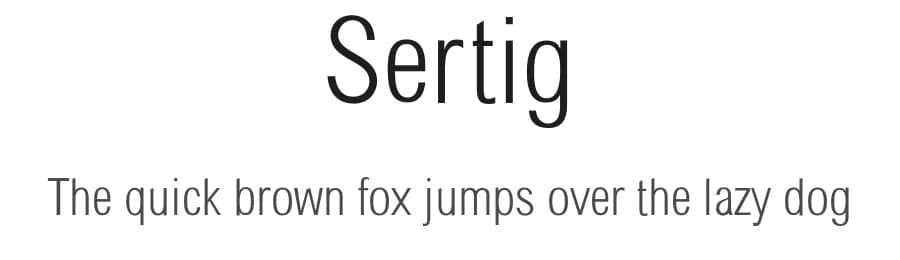
About Sertig Font
Sertig is a sans-serif font designed by Dannci. It includes 371 glyphs, a regular weight, OTF (CFF) format, and 280 languages. Sertig is free to download; check the license details on this page before commercial use. Sans-serif fonts like Sertig work best for clean body text, user interfaces, branding, and modern layouts.
| Glyph Count | 371 glyphs |
| Designer | Dannci |
Sertig ships with 4 OpenType features you can switch on in apps that support them (Illustrator, InDesign, Affinity, Figma, CSS font-feature-settings).
Sertig supports 280 languages.
Sertig Font is a versatile sans-serif font that works for both headings and body text. Pair it with a contrasting serif or slab serif font to add visual interest and a clear distinction between titles and body copy.
Sertig Font
by Dannci
Sertig Font is a sans serif typeface by Dannci, ideal for logos, invitations, branding, and creative projects.